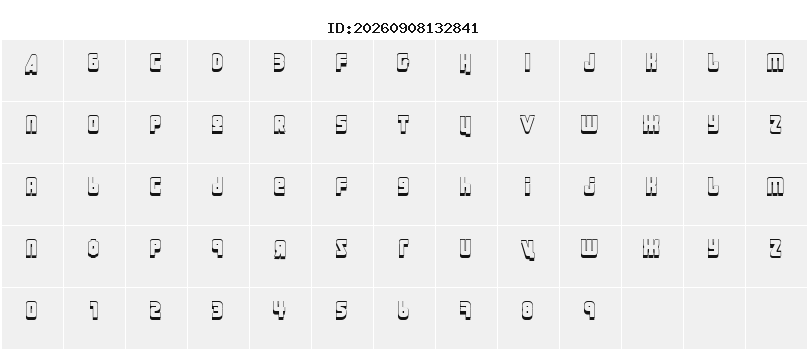
URAL 3d Preview
• Font Name: URAL 3d
• Full Font Name: URAL 3d
• Version: Fenotypefaces 4.1 27.2.2002 : Emil Bertell, Helsinki Finland.
About URAL 3d.ttf
URAL 3d.ttf is a modern, elegant sans-serif font designed for ultimate readability and visual harmony. Perfect for branding, headlines, web design, and print materials.